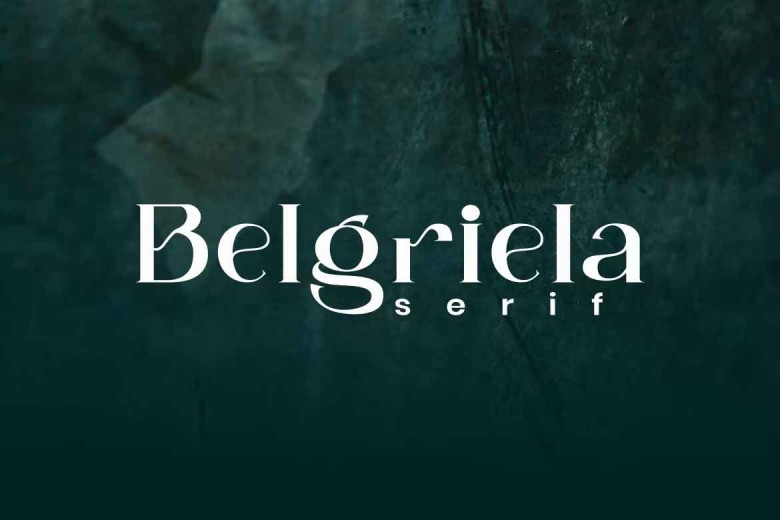
Belgriela Font
Belgriela is a Stylish Elegant Serif Font TTF, Read me benefits featured: Belgriela is a stylish and elegant serif font – dainty and sophisticated. Belgriela – Stylish Elegant Serif Font.stdcall. This listing features a curated collection of each straightforward and simple to use allocation based entirely on your presentation requirements.
Belgriela Serif Font